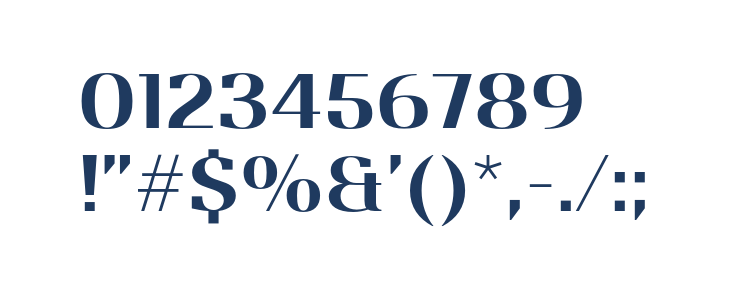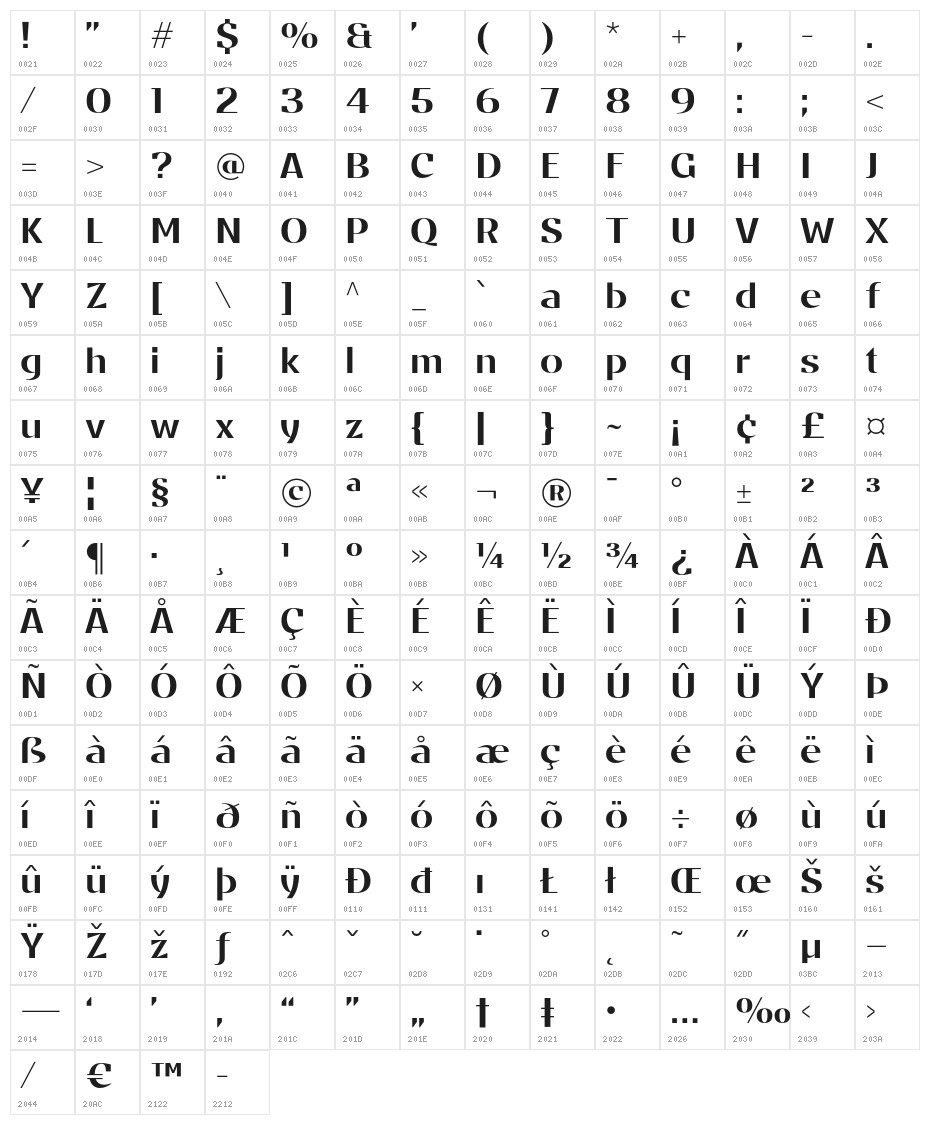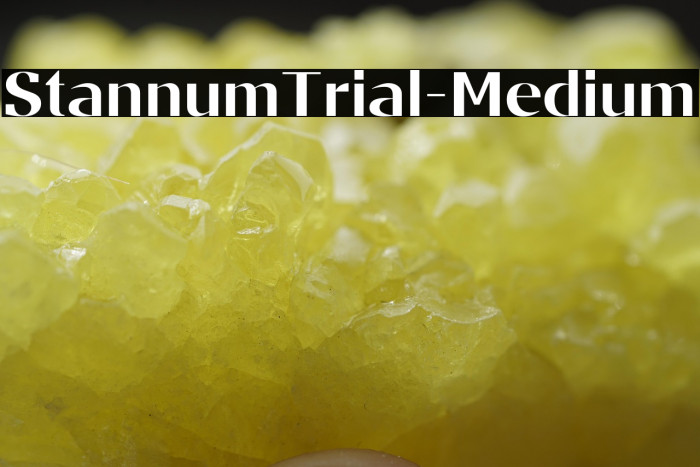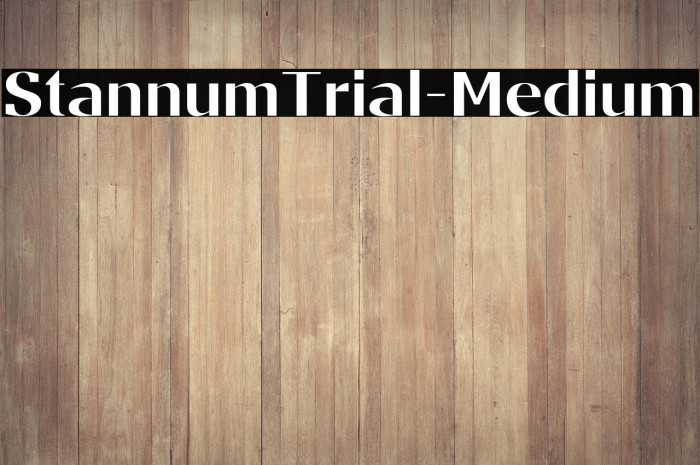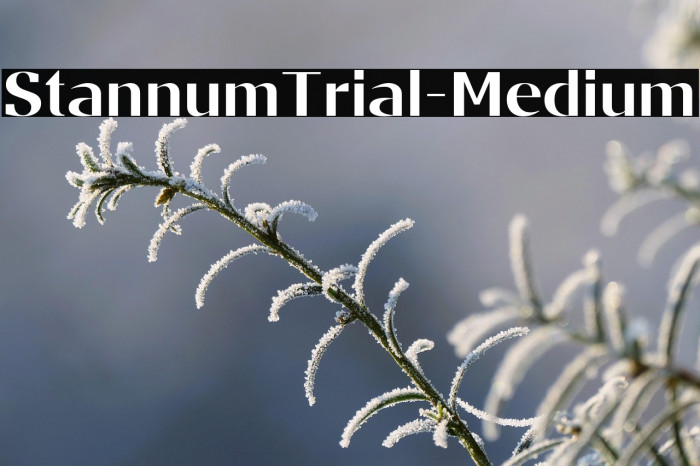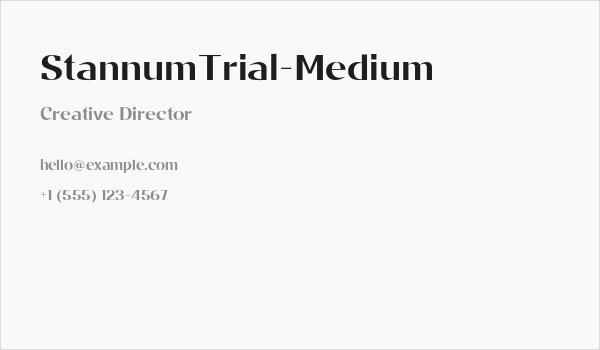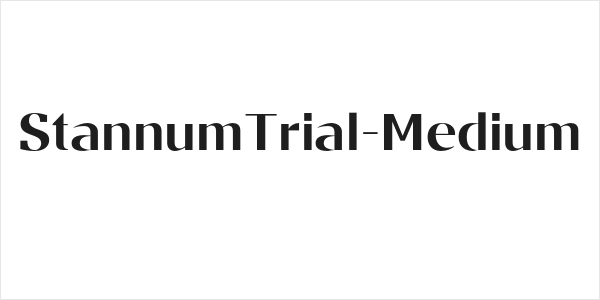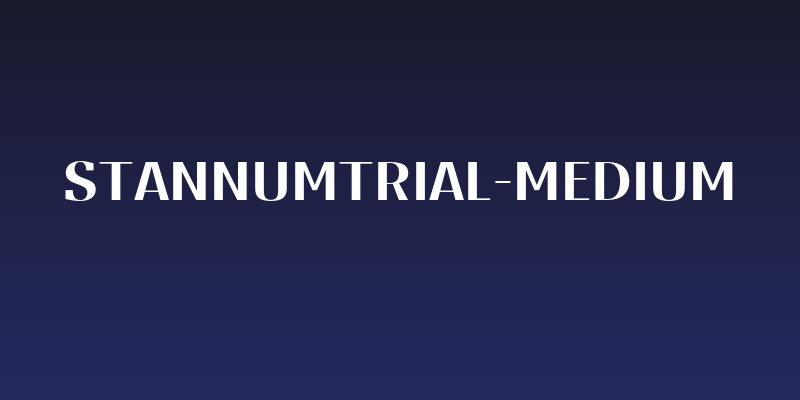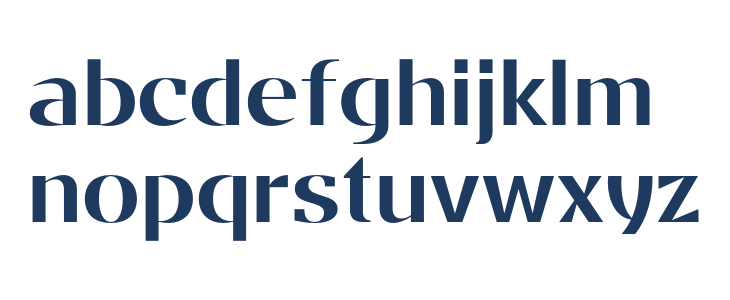
StannumTrial-Medium Font
StannumTrial-Medium Description
This font features a modern and sleek design with clean lines and a balanced structure. The uppercase letters are bold and impactful, while the lowercase letters maintain a harmonious flow. The numbers are distinct and easy to read, making them suitable for various applications. Special characters are well-defined, adding versatility to the font. The overall appearance is professional and contemporary, making it ideal for both digital and print media.
| Proposed Projects | Ideal for branding, advertising, and editorial design projects. |